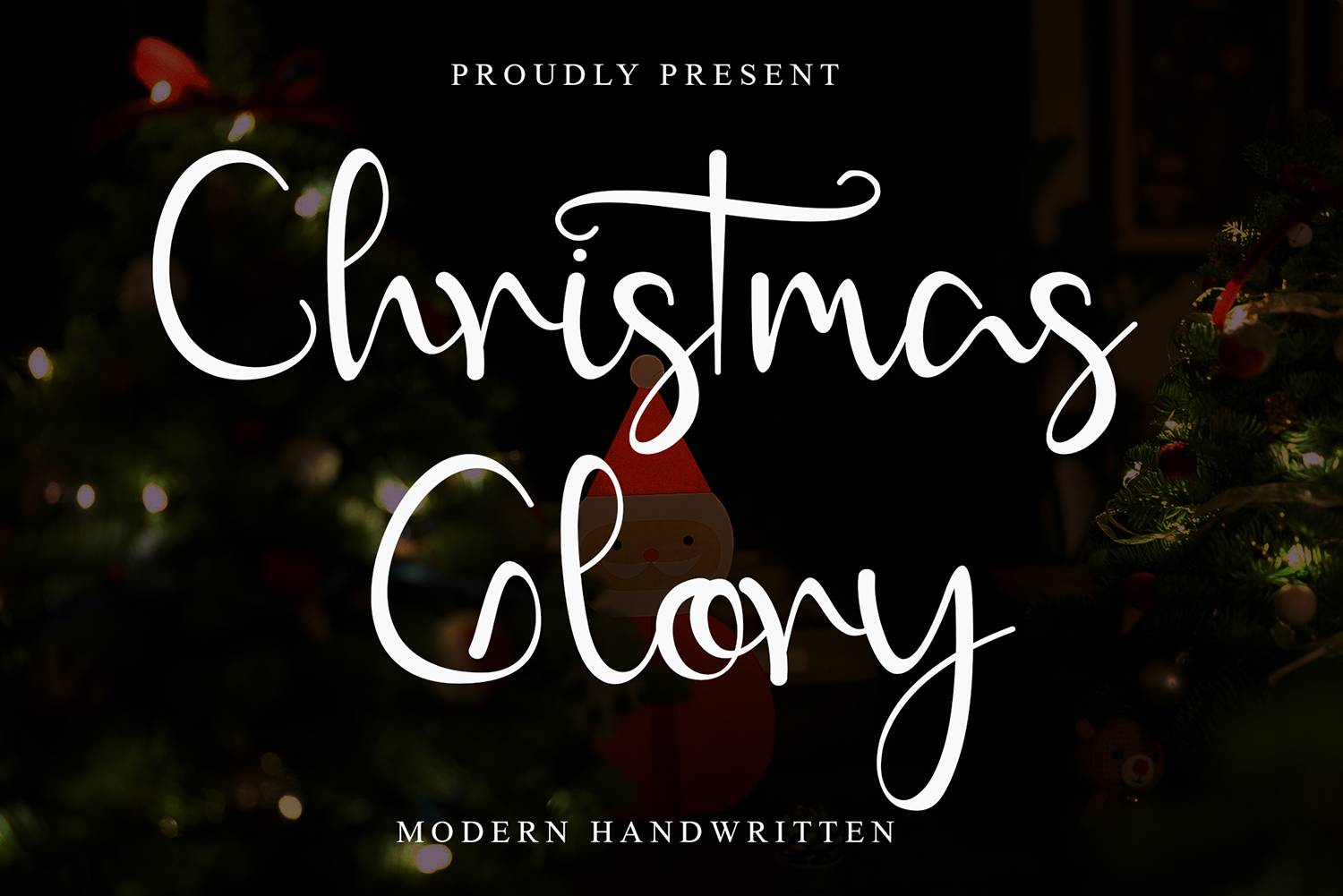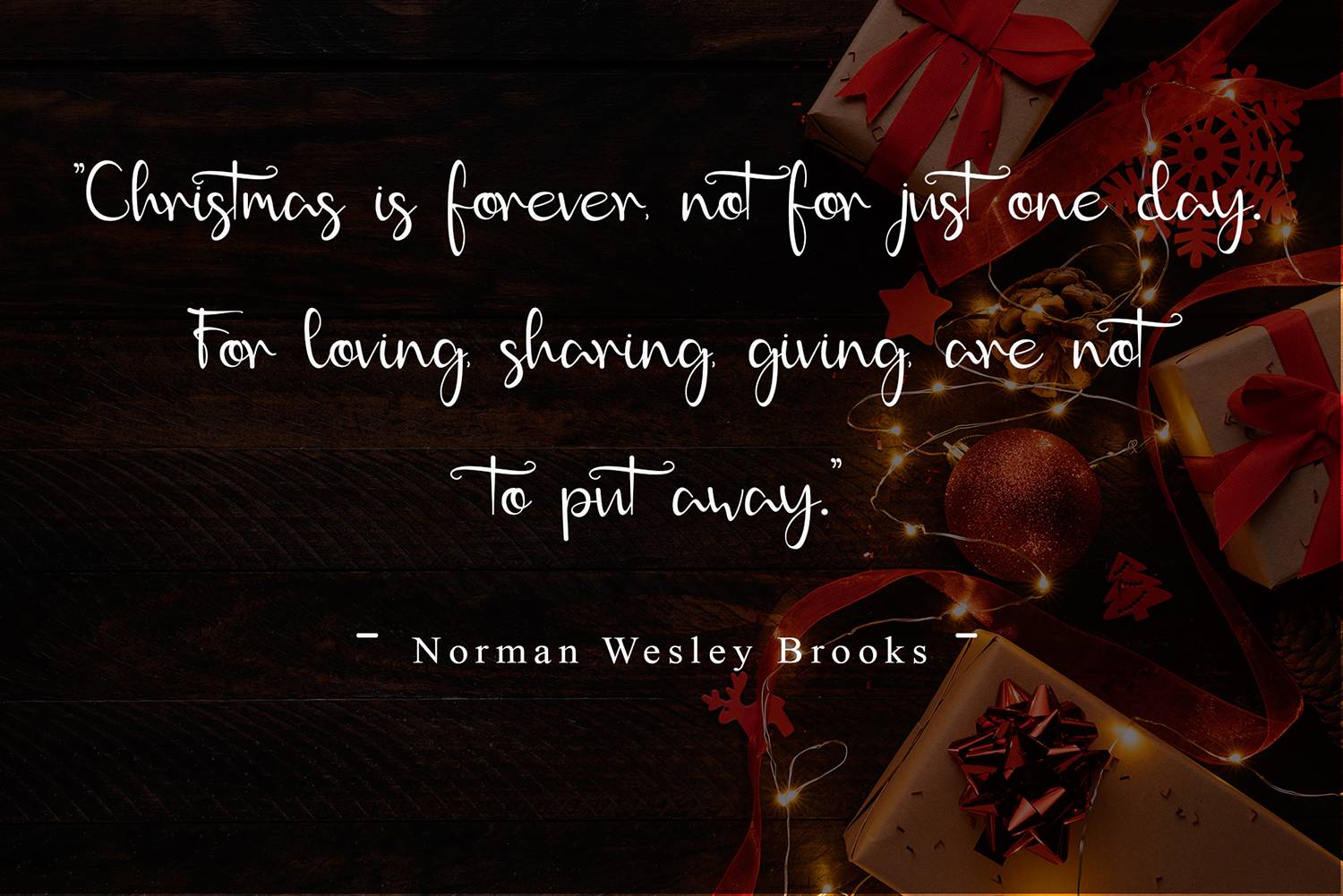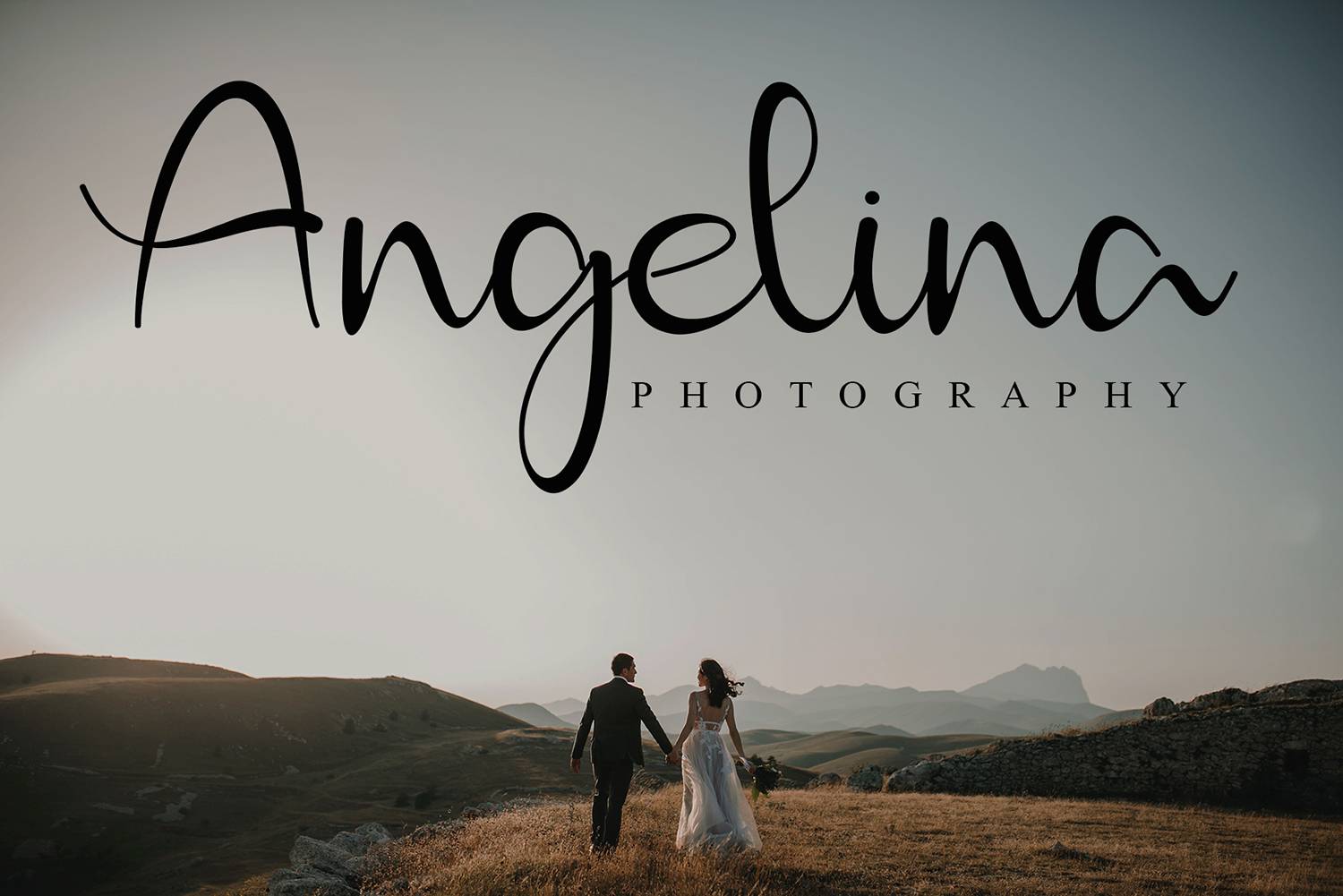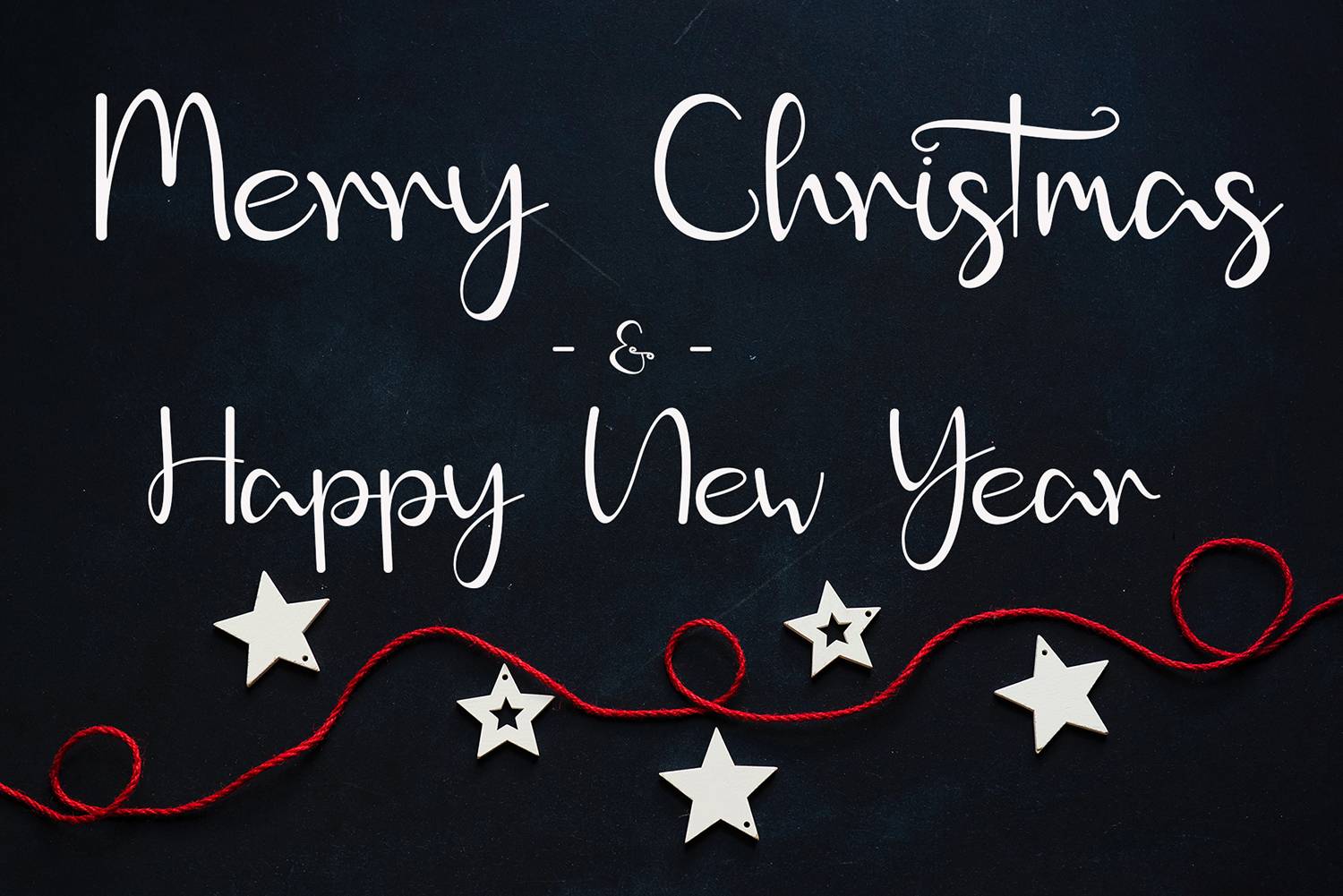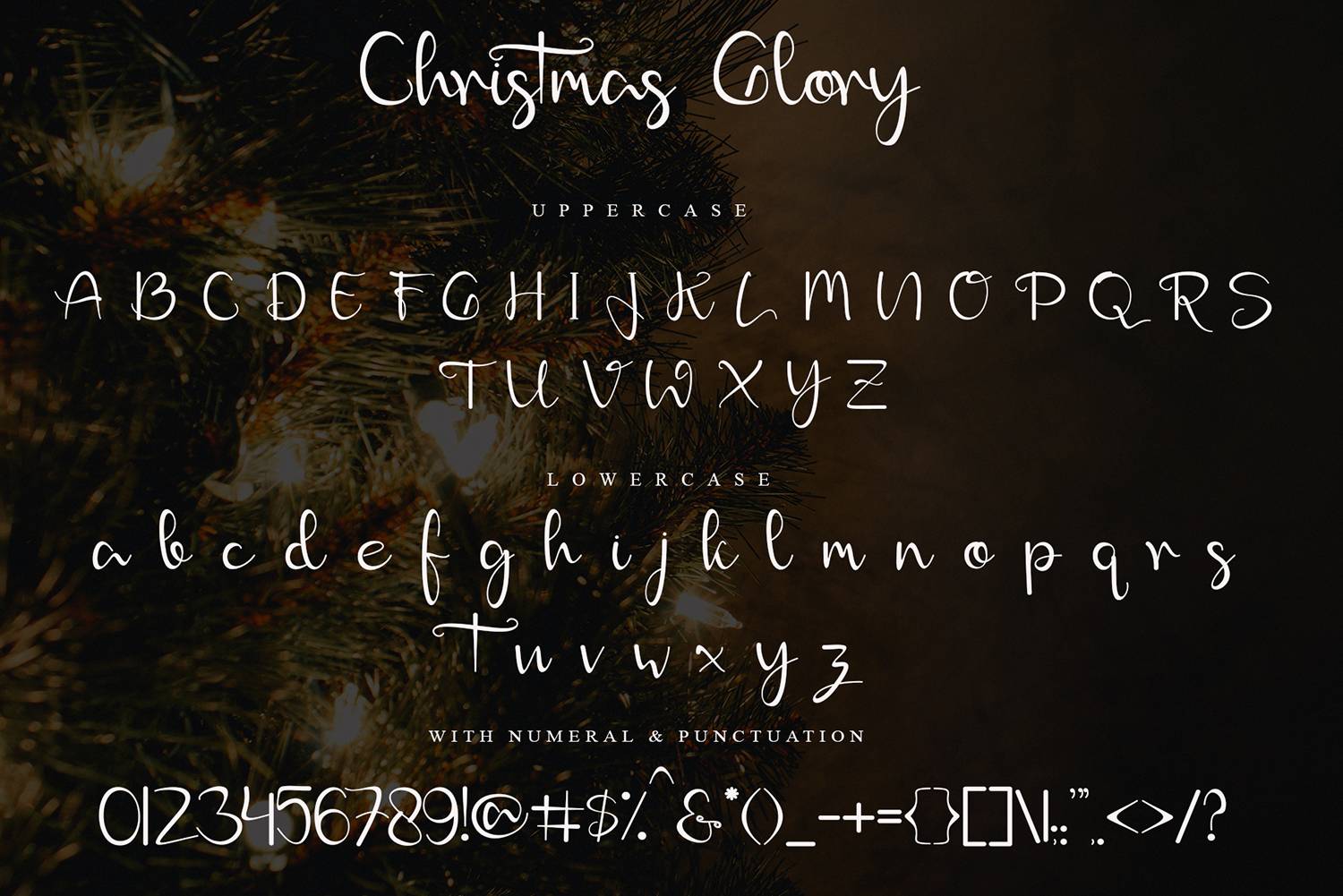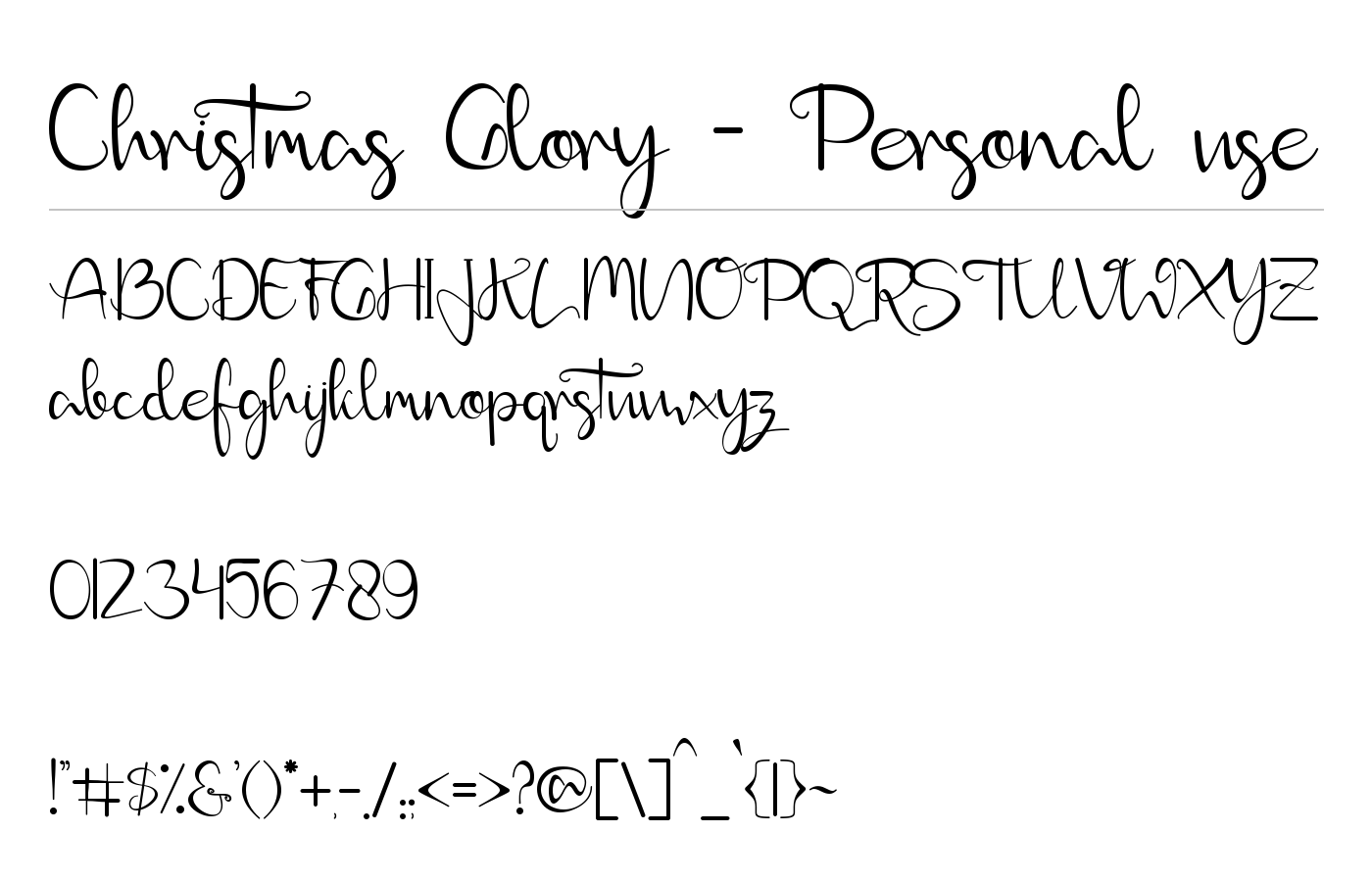
Christmas Glory Font is a delicate and playful handwritten script with thin, flowing strokes and whimsical curls that evoke a charming, festive feel. Its tall, narrow letterforms and casual style make it perfect for holiday-themed designs, greeting cards, and branding that aims to feel warm and inviting. This font works especially well in decorative headlines and invitations where a personal, cheerful touch is desired.
Christmas Glory Font
About Christmas Glory Font
| Font family | Christmas Glory Font |
| Designer | ArkristLetter |